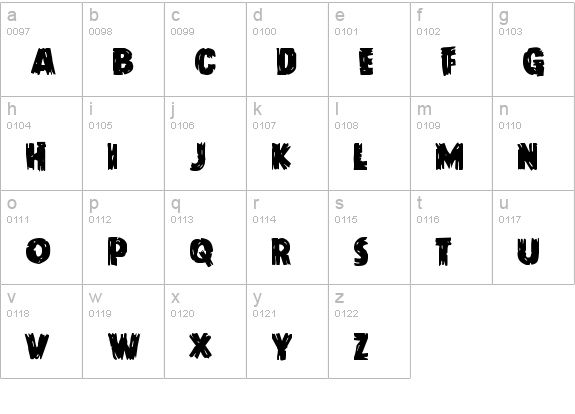
Doktor Monstro is a donationware font in the Theme > Horror category, designed by Iconian. It has been downloaded 70 times and is available for Windows, Mac and Linux.
Doktor Monstro font is a unique and eye-catching display typeface that is sure to make any design stand out. With its bold and playful style, this font is perfect for adding a touch of personality to your projects. Whether you are working on a poster, logo, or website, Doktor Monstro will make a statement.